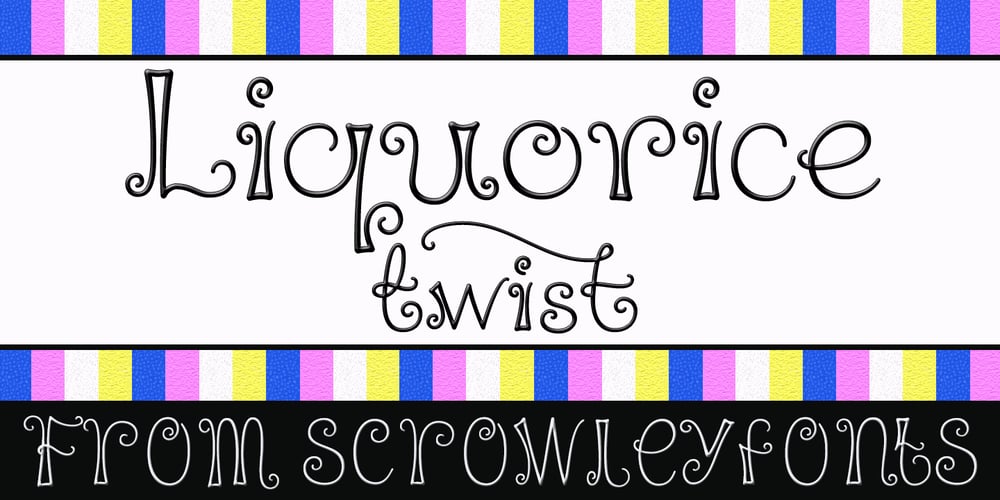
Liquorice Twist
Liquorice Twist font
Liquorice Twist Font Family was designed by Tanya Davis and published by Scrowleyfonts. Liquorice Twist contains 1 styles and family package options. Liquorice Twist is a light-hearted fun font which developed from some hand drawn text designed to accompany and be integrated with some ‘Zen Doodling’ art that someone had drawn. It is very informal and unconventional, with the glyphs created using unusual and loose ‘rules’. The font has a set of stylistic alternates with equal height lower-case letters. It also has the option of alternate initial capitals and alternate ending lower case letters accessible via contextual alternates. I hope you will enjoy using it and if you have any further requirements please don’t hesitate to contact me. Myfonts does not render the starting and ending swashes correctly. If you wish to see how any word will appear with contextual alternates selected please let me know.